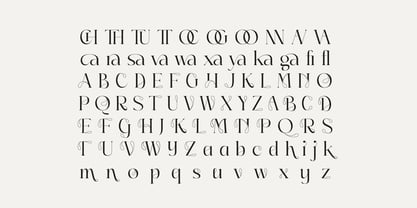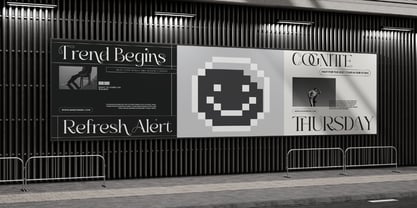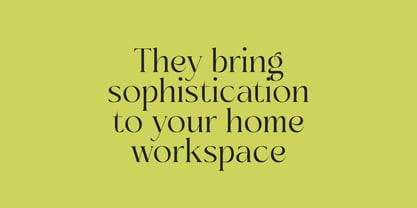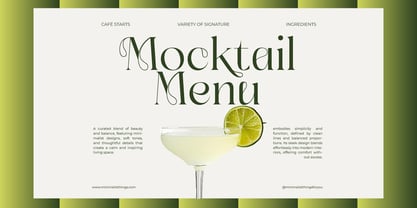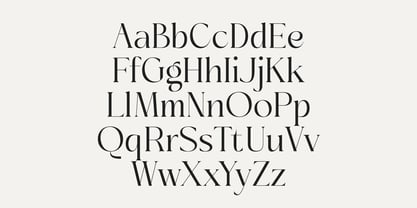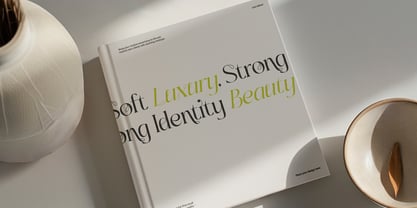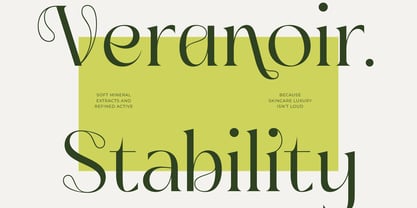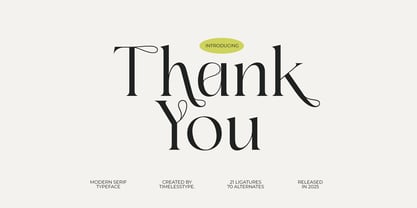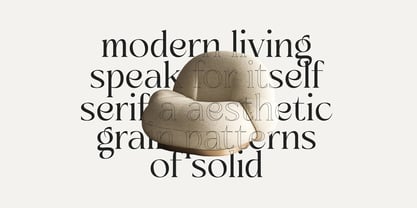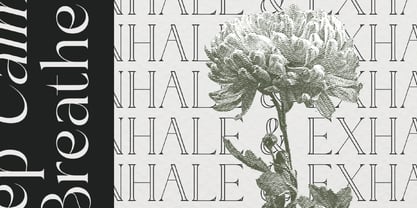
Sainer Bagora
by Timelesstype Studio
The Sainer Bagora Font Family was designed by Heru Utama Putra and published by Timelesstype Studio. Sainer Bagora contains 2 styles and family package options.
Sainer Bagora - Modern Serif Typeface , from Timelesstype , Suitable for any projects such as: logos, branding projects, homeware designs, product packaging, mugs, quotes, posters, shopping bags, t-shirts, book covers, name card, invitation cards, greeting cards, label, photography, watermark, special events, and all your other luxury and beautiful projects that need a Luxury Serif taste.